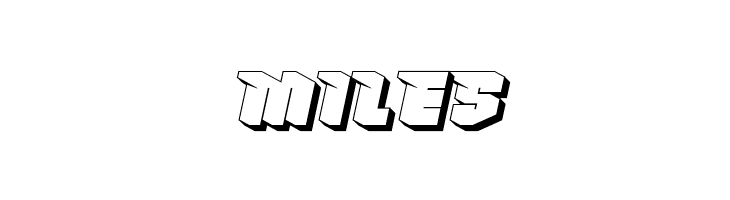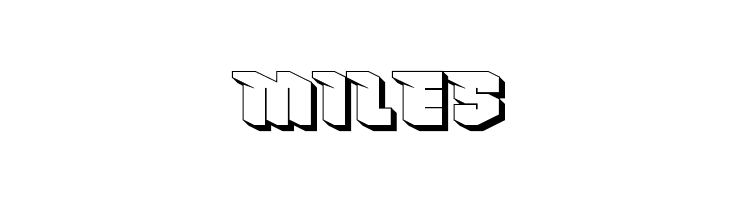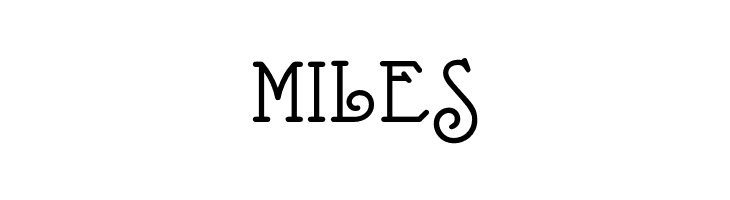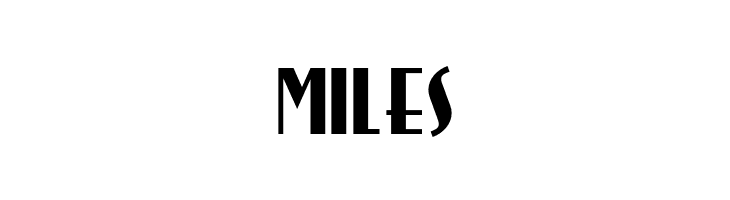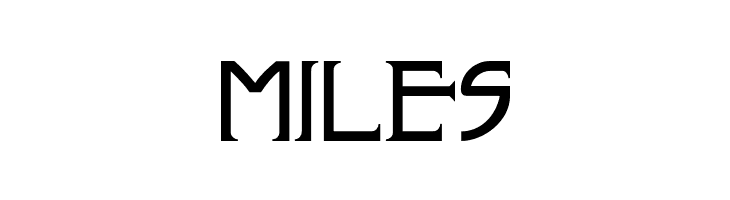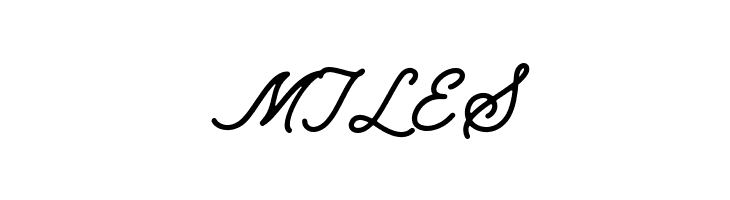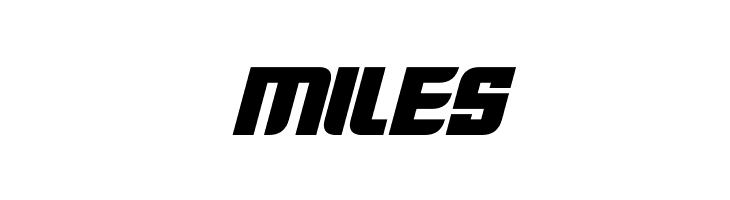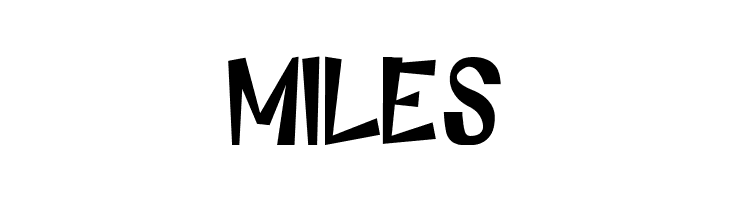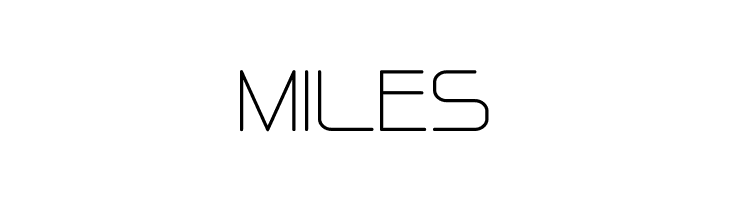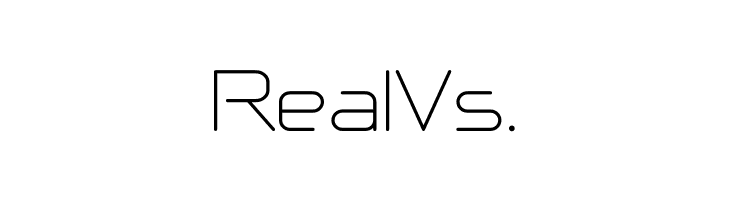
A collection of animal silhouettes and abstract patterns inspired by ancient cave drawings.
A decorative font inspired by ancient cave drawings with animal silhouettes and geometric patterns.
A futuristic, geometric font with a double-line structure and modern appeal.
A futuristic italic font with a double-line effect and geometric structure.
A bold, geometric font with a strong, modern presence.
A bold, italic font with a modern, dynamic design.
A bold, geometric font with a modern and impactful style.
A playful, bold font with rounded, bubbly characters ideal for fun and creative projects.
A playful and whimsical font with quirky letterforms and creative embellishments.
A bold, geometric font with Art Deco influences and modern flair.
A bold, angular font with a futuristic and geometric design.
A playful, hand-drawn font with smooth curves and an organic feel.
A decorative, calligraphic-style font with elegant curves and dynamic strokes.
A modern, monospaced font with geometric, rounded characters.
A modern, monospaced font with a retro electronic display vibe.
A bold, hand-painted style font with dynamic, expressive characters.
A bold, dot-based font with a futuristic and playful design.
A bold, playful font with angular strokes and a dynamic, whimsical style.
A bold, geometric font with rounded edges and a distinct outline, perfect for impactful designs.
A bold, rounded, and playful font with a hand-drawn feel.
A bold, distressed font with a textured, vintage look.
A classic and elegant script font with flowing, cursive letterforms.
A bold, italicized font with sharp, angular edges and a futuristic look.
A bold, angular, and slanted font with a dynamic and modern design.
A modern sans-serif font for the Meetei Mayek script, offering clarity and readability.
A bold, festive display font with integrated leaf and branch decorations.
A bold, three-dimensional font with shadow effects, combining retro and modern styles.
A bold, three-dimensional font with a shadow effect and italic style, perfect for attention-grabbing designs.
An artistic and abstract representation of Braille with decorative elements.
A modern, geometric font with clean lines and a minimalist style.
A modern, geometric font with clean lines and rounded edges.